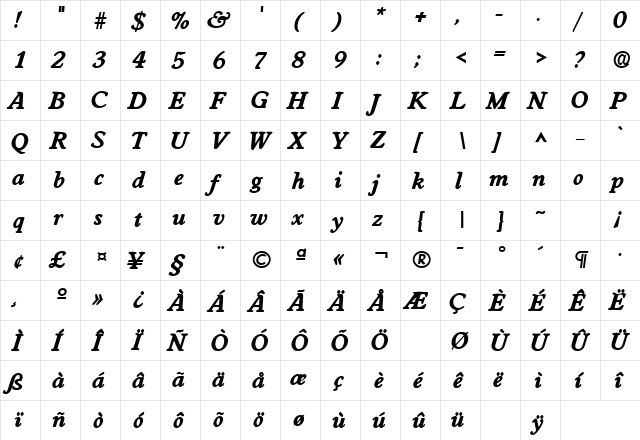
WorcesterLH Bold Italic Font Preview
Design Context for WorcesterLH Typeface
WorcesterLH takes a measured approach to typography — its balanced proportions and neutral character make it a reliable workhorse for both digital and print work. The slanted form adds forward momentum and visual energy. Its bold stroke weight gives it real presence on the page.
Pro Tip: Try WorcesterLH for annotation and caption copy alongside an upright companion — the contrast in angle creates a dynamic but ordered typographic system.